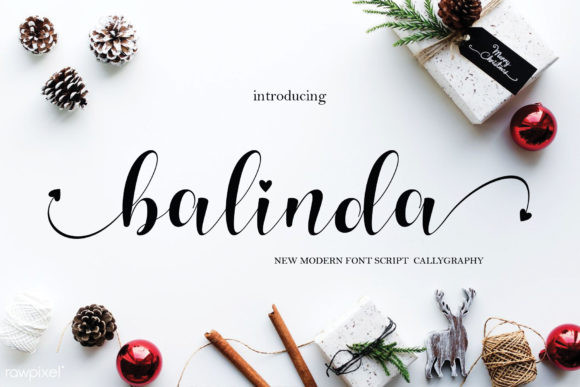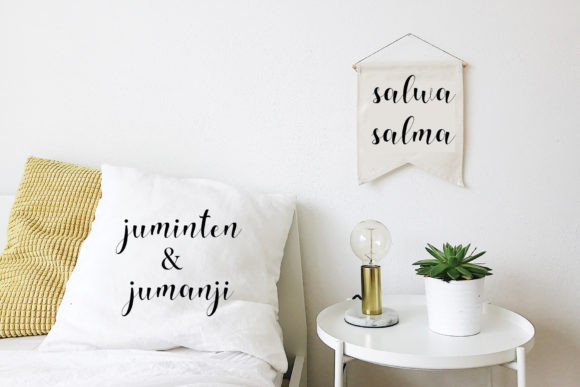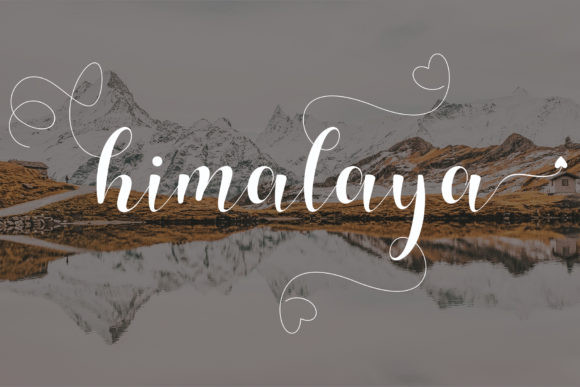
Balinda Font
Balinda is a stunningly modern and sweet script font with a classic approach to calligraphy. It will turn any design idea into a true piece of art!